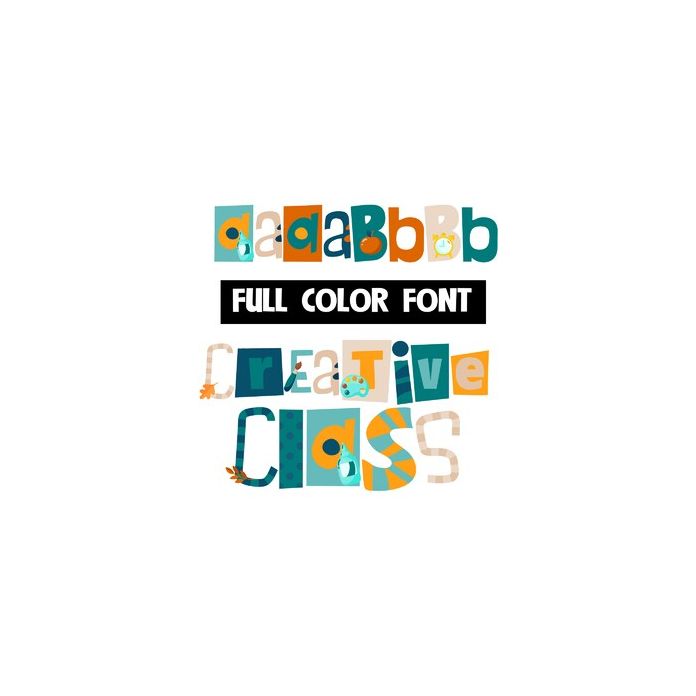
This full-color font features creative lettering in a blue/yellow/orange color palette and school supplies. There is a secondary color of each letter you can access through your system's or Silhouette's glyph map.